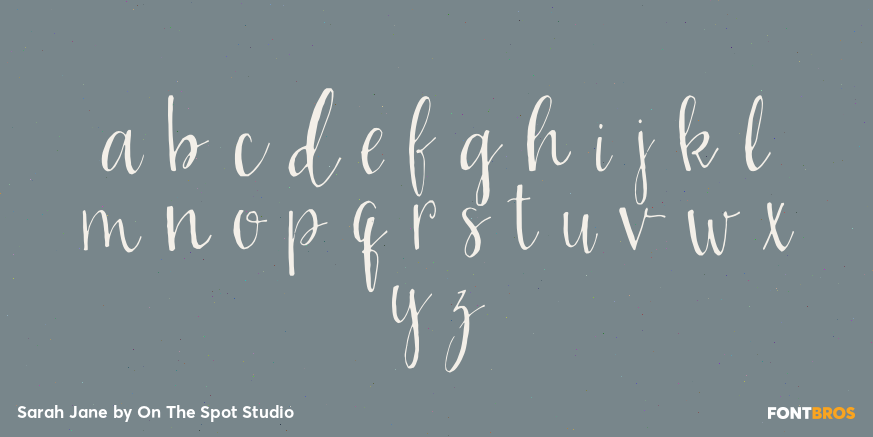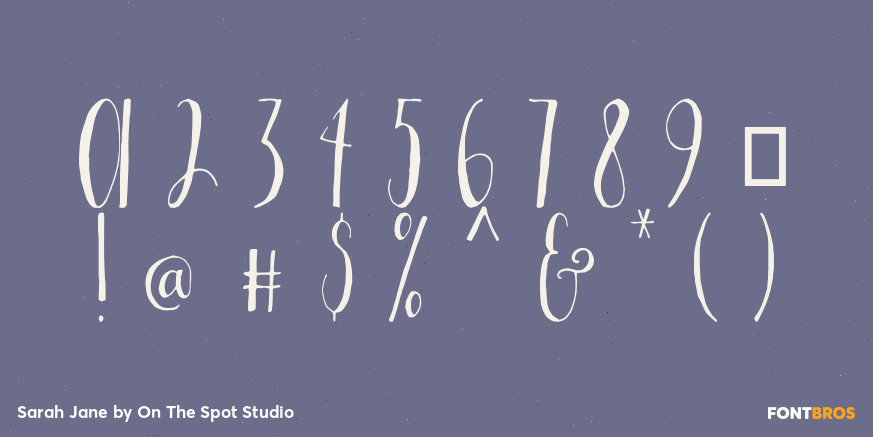
Sarah Jane
Font Family by On The Spot Studio
A lovely hand drawn script font with a calligraphic feel. Includes uppercase, lowercase, numbers and limited punctuation.